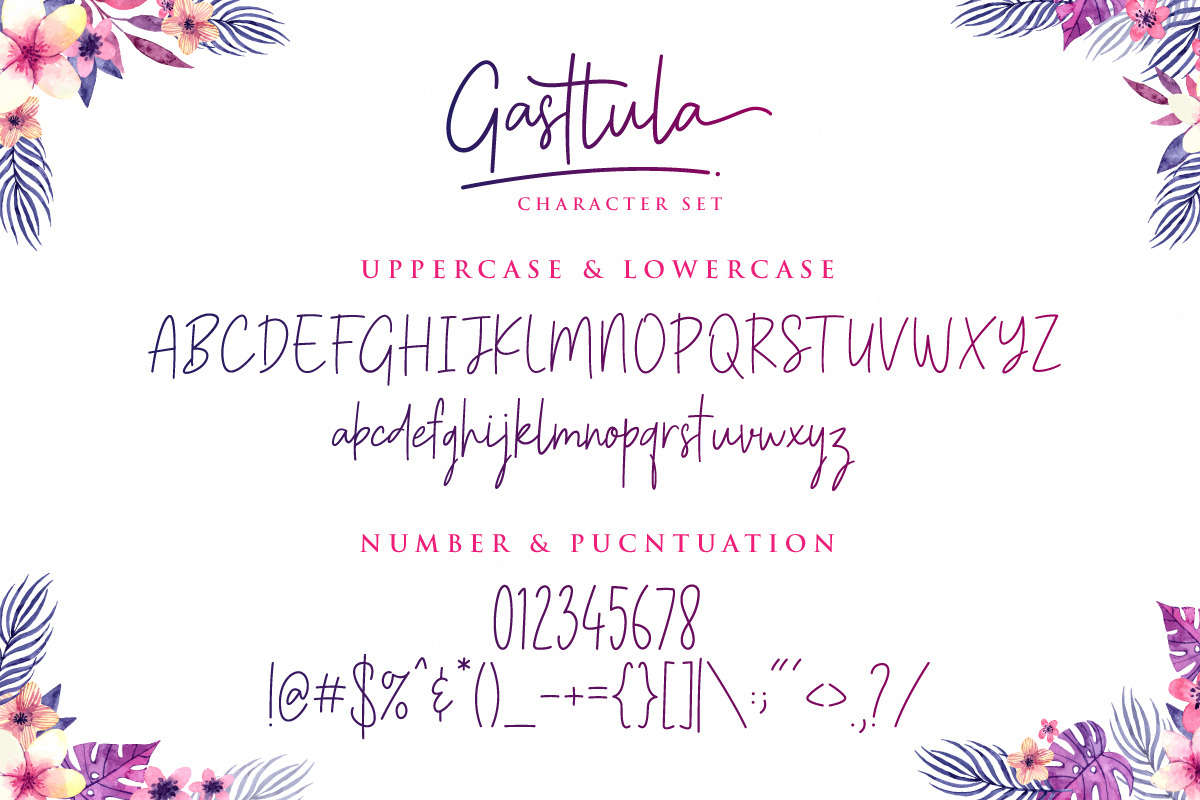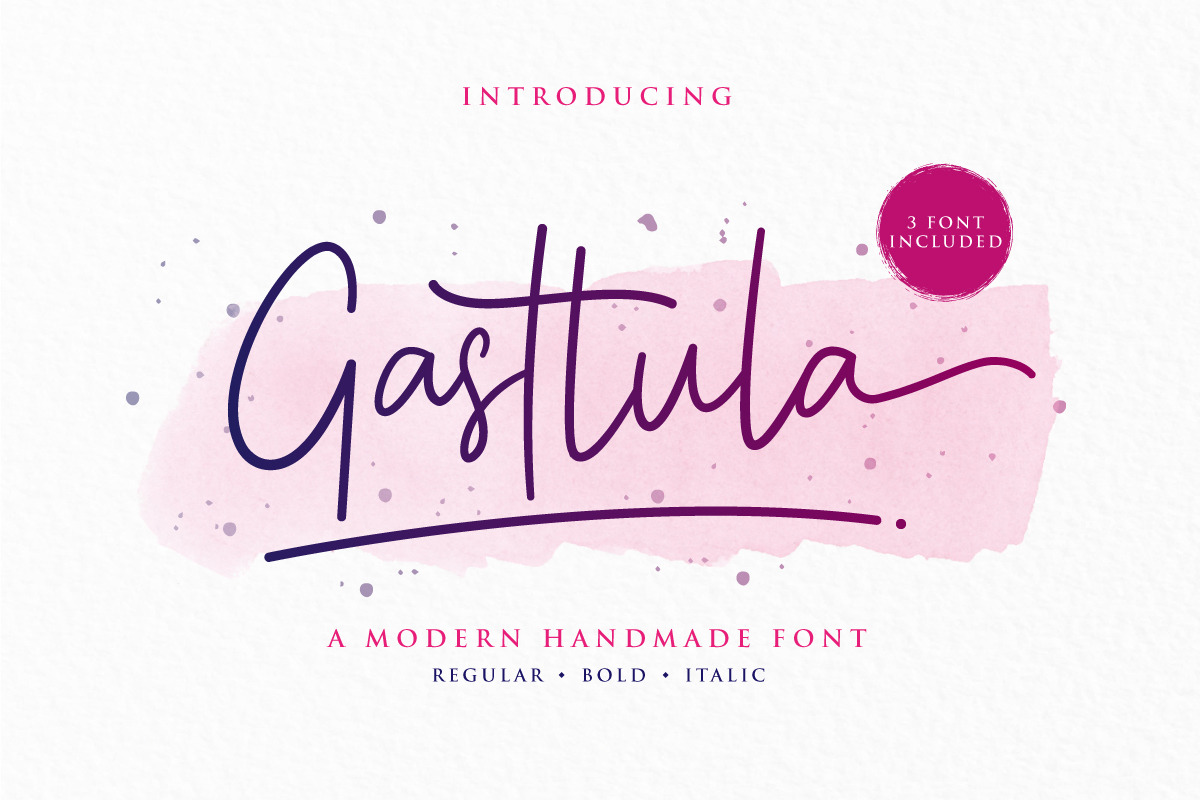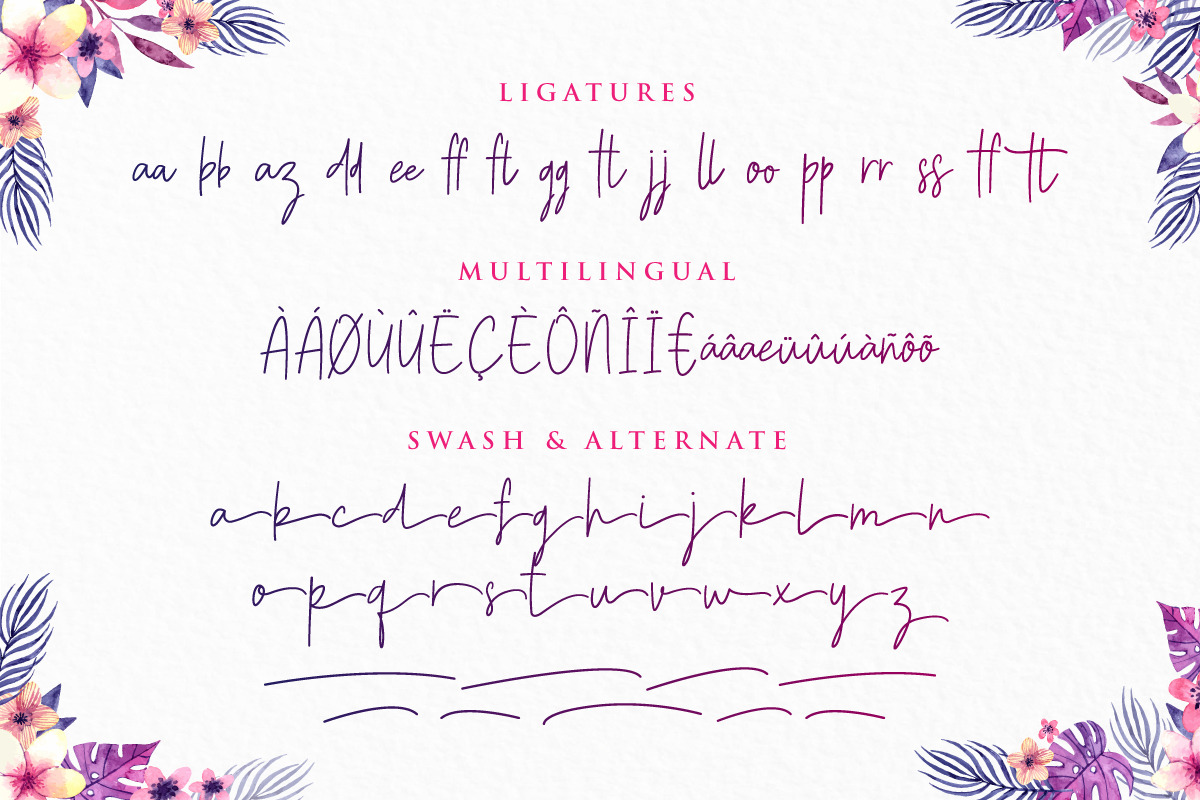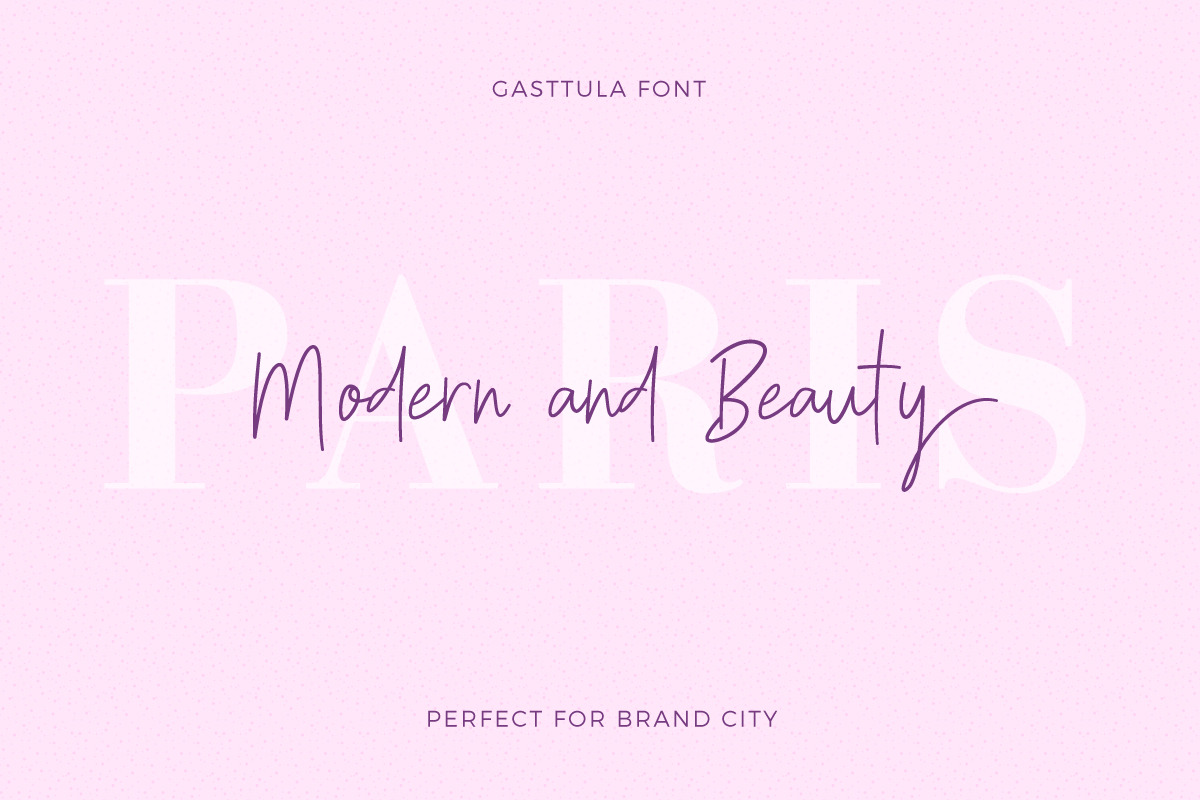
NEW!! Gasttula - 3 Font
Gasttula handmade font is for any typhography needed, designed to combine perfectly and allow you to create stunning hand-lettering quickly and easily. Ideal for logos, handwritten quotes, product packaging, header, poster, merchandise, social media & greeting cards.
- Stylistic Set
- Latin Pro Support Character